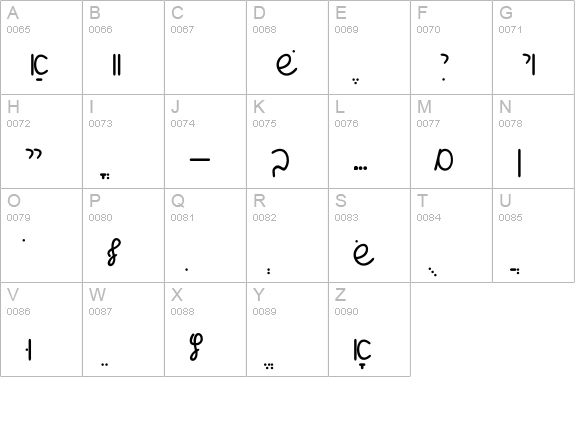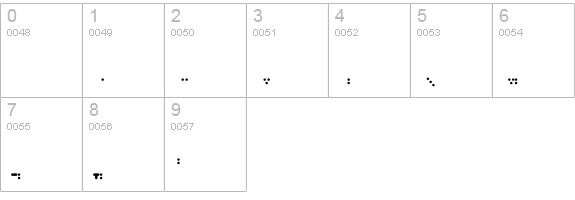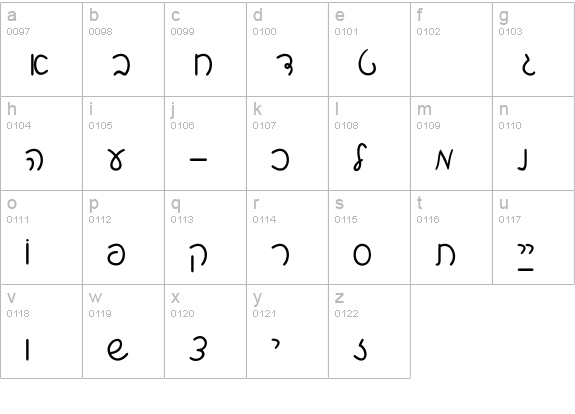
ShalomScript Font Details
ShalomScript is a stunningly beautiful font that exudes elegance and sophistication. With its graceful curves and delicate strokes, it adds a touch of refinement to any design project. This script font is perfect for creating wedding invitations, greeting cards, logos, and more. Its versatility allows it to be used in both formal and informal settings, making it an essential addition to any designer's toolkit. What sets ShalomScript apart is not just its beauty, but also the fact that it is available for free. Yes, you read that right - this remarkable font can be downloaded without any cost. No need to break the bank to add a touch of elegance to your designs. Simply head over to FontsMarket.com and grab this font for free. ShalomScript's freely available download makes it accessible to designers of all skill levels and budgets. Whether you are a professional designer working on a high-profile project or a hobbyist looking to add a touch of elegance to your personal creations, this font has got you covered. So why wait? Enhance your designs with the timeless beauty of ShalomScript. Download it for free at FontsMarket.com and let your creativity soar.